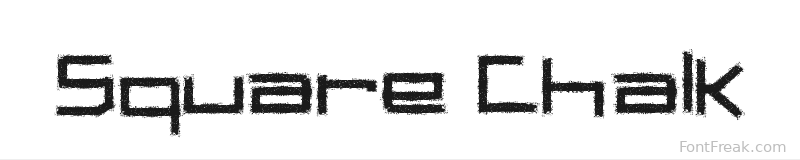
Square Chalk
About Square Chalk
Square Chalk, designed by Galdino Otten Fonts in 2012, is a distinctive display font that captures the essence of a playful, hand-drawn aesthetic. This font is categorized as a decorative typeface, showcasing a unique square structure that mimics the appearance of chalk markings on a board. Its stroke weight is consistent, creating a solid and sturdy feel, while the slightly rough edges add a charming, imperfect quality that enhances its handwritten appeal. The overall spacing is balanced, ensuring legibility while maintaining a casual vibe.
This font is particularly versatile, making it an excellent choice for a variety of creative projects. It shines in settings such as children's book covers, where its playful nature can attract young readers. Additionally, Square Chalk works wonderfully for educational materials, giving a friendly and approachable look to worksheets or classroom posters. Its striking design is also suitable for promotional materials in cafes or restaurants, offering a warm and inviting atmosphere to menus and signage. Event planners may find Square Chalk to be an ideal option for wedding invitations or party flyers, where a personal touch is desired.
In a world saturated with standard typefaces, Square Chalk stands out with its charmingly imperfect style and versatility. The Square Chalk font free download offers a delightful opportunity to elevate your designs, making it a must-have for anyone looking to add a touch of creativity and warmth to their work.